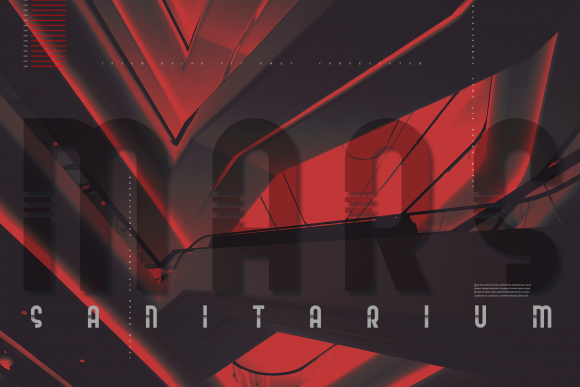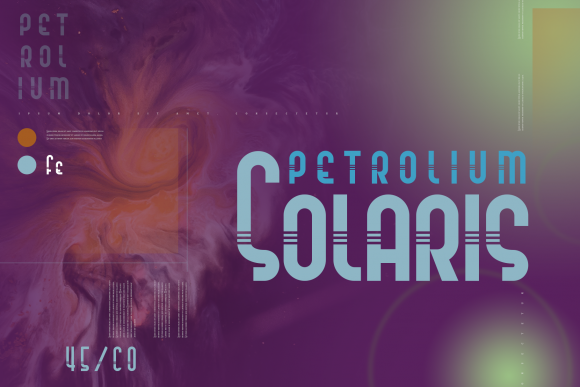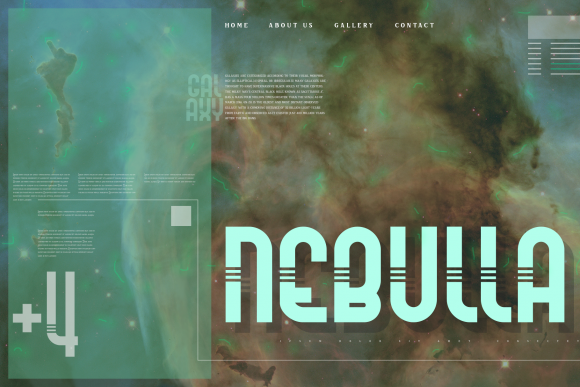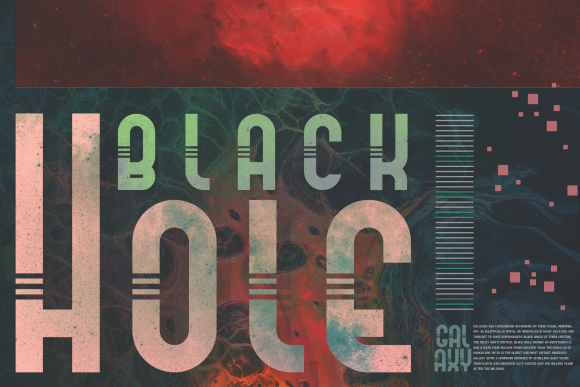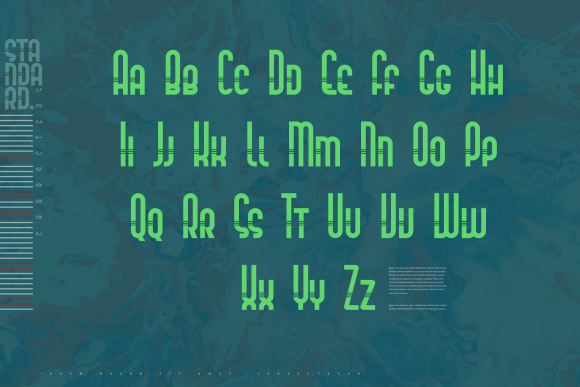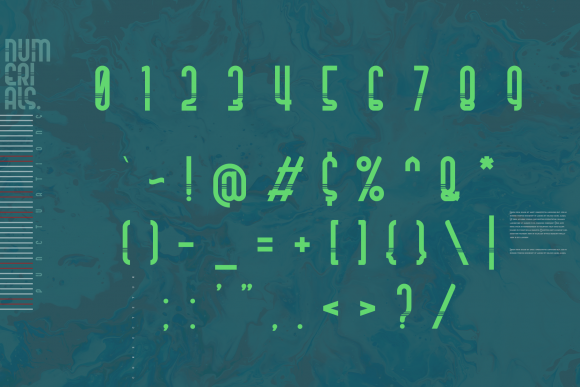
Discover the Power of Carberon Font: Elevate Your Design
Have you ever stared at a blank page, waiting for that spark of creativity to strike? For designers, it’s a familiar feeling – the moment when everything comes together, and a concept transforms into a masterpiece. It’s a feeling that’s hard to replicate, but with the right tools, it’s within reach. Enter the Carberon Font, a simple yet striking display font that’s sure to inspire your next big project.
Designed with versatility in mind, the Carberon Font is perfect for designers looking to add a touch of sophistication to their work. Whether you’re creating a bold logo or an eye-catching headline, this font is sure to elevate your design. With its clean lines and sharp edges, the Carberon Font is a valuable addition to any designer’s toolkit.
Carberon Font Key Features
- Font Family: Carberon Font is a modern sans-serif font family, available in multiple weights and styles.
- Size: Carberon Font comes in 12 font weights, ranging from Extra Light to Extra Bold.
- Unique Characteristics: Carberon Font features a unique blend of geometric and organic shapes, giving it a modern and sophisticated look.
- Language Support: Carberon Font supports a wide range of languages, including Latin, Cyrillic, and Greek scripts.
Carberon Font Review
Overall, I’d say Carberon is a decent font with some nice features. ✨ It has a clean and modern aesthetic, making it perfect for various digital design projects. The font is highly customizable, with a range of styles and weights available, which can be easily adjusted to fit your design needs.
- ✨ Excellent for digital displays: Carberon’s design makes it perfect for screens, with clear and crisp lines.
- ✨ High customization options: The font offers various styles and weights, allowing you to tailor it to your design preferences.
- ✨ Suitable for a range of projects: Carberon can be used for anything from website headers to mobile app interfaces.
However, there are a few limitations that might make you think twice. ⚠️ The font doesn’t quite stand out in crowded designs, and it may not be the best choice for projects that require a more unique or bold typography.
- ⚠️ May blend into the background: Carberon’s clean design can sometimes make it hard to notice in busy designs.
- ⚠️ Limited expressiveness: The font may not be the best choice for projects that require a lot of emotional expression or character.
Overall, Carberon is a solid choice for designers who want a clean and modern font for their digital projects. While it may not be the most exciting or unique font, it gets the job done, and its customization options make it a versatile tool in any designer’s toolkit.
Tips for Getting the Most Out of Carberon Font
Use Carberon Font to create a cohesive brand identity across all your designs.
Experiment with different font sizes and colors to add visual interest to your designs.
Combine Carberon Font with other design elements to create a unique and eye-catching look.
Use Carberon Font for:
Headings and titles in brochures, flyers, and posters.
Body text in business cards, resumes, and other professional documents.
Custom typography in logos, branding materials, and marketing campaigns.
Alternatives to Carberon Font for Designers
1. Arial Rounded
Arial Rounded is a sans-serif font that offers a more rounded and friendly appearance compared to the sharp edges of Carberon Font. It is suitable for use in corporate identity, web design, and print materials where a clean and approachable feel is desired.
Comparison: Arial Rounded has a more rounded appearance and a less dramatic contrast between thick and thin strokes compared to Carberon Font.
Open Sans is a modern sans-serif font that offers a clean and minimalist appearance. It is highly legible and suitable for use in digital products, web design, and mobile applications where a clear and concise typography is required.